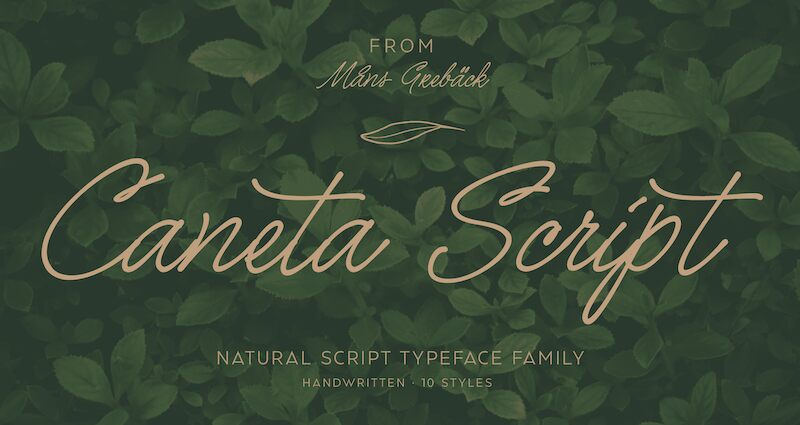
Caneta Script PERSONAL USE Regular
Caneta Script, designed by Mans Greback, is an exquisite extra-light font that brings forth the natural beauty of handwritten letters. With its pen and ink-inspired calligraphy style, this font truly captures the essence of traditional handwriting.
Its delicate penmanship and nostalgic charm make it perfect for projects that aim to evoke a sense of elegance and sophistication. Whether used in wedding invitations, vintage-themed designs, or elegant branding materials, Caneta Script adds a touch of timeless allure to any project.
Its authentic look reminiscent of feather pen scribbles makes it an ideal choice for projects seeking to celebrate the artistry and sentimental value of handwritten letters from the past.